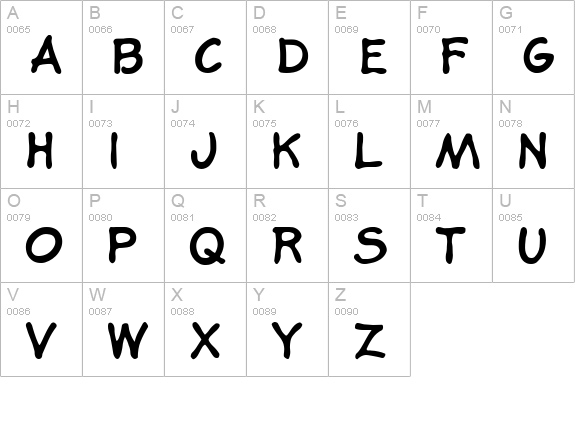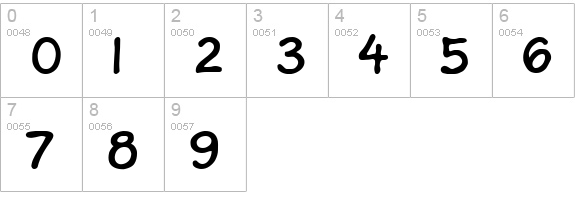
Book Illustrator's Handwriting Font Details
Book Illustrator's Handwriting is a comfortable, highly readable variant in the Book typeface family \xE2\x80\x94 well suited to long-form body text, articles, and editorial content.
Book Illustrator's Handwriting font is a whimsical and charming typeface that captures the essence of hand-drawn illustrations found in storybooks. Its playful strokes and quirky details give off a warm and inviting feel, perfect for adding a touch of creativity to any project. The flowing handwritten style of this font evokes a sense of nostalgia and imagination, making it an ideal choice for book covers, posters, greeting cards, and more. Best of all, Book Illustrator's Handwriting font is available for free download at FontsMarket.com. This means that you can easily access this delightful typeface and use it in your designs without any cost. Whether you're a seasoned designer looking to add a unique flair to your work or an aspiring artist wanting to experiment with different fonts, Book Illustrator's Handwriting font is a fantastic option that won't break the bank. Download it today and start bringing your creative visions to life with this charming and versatile font.